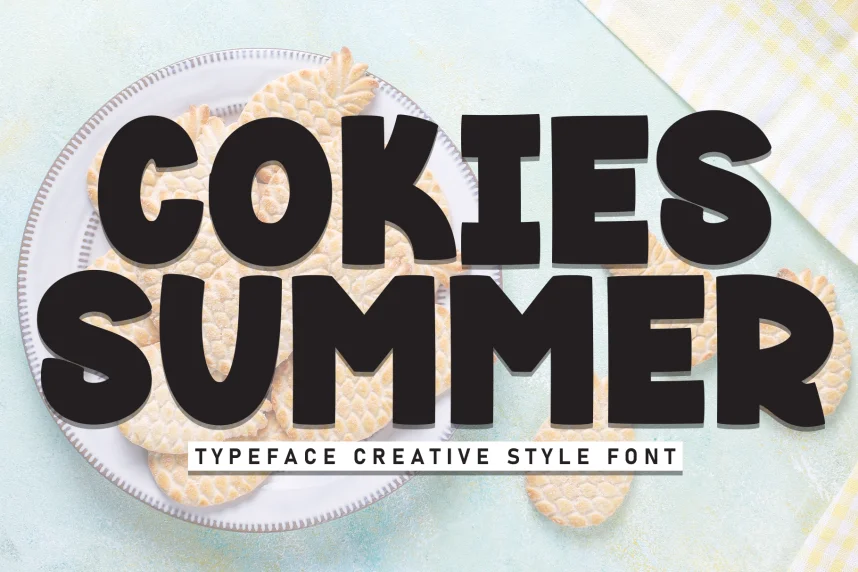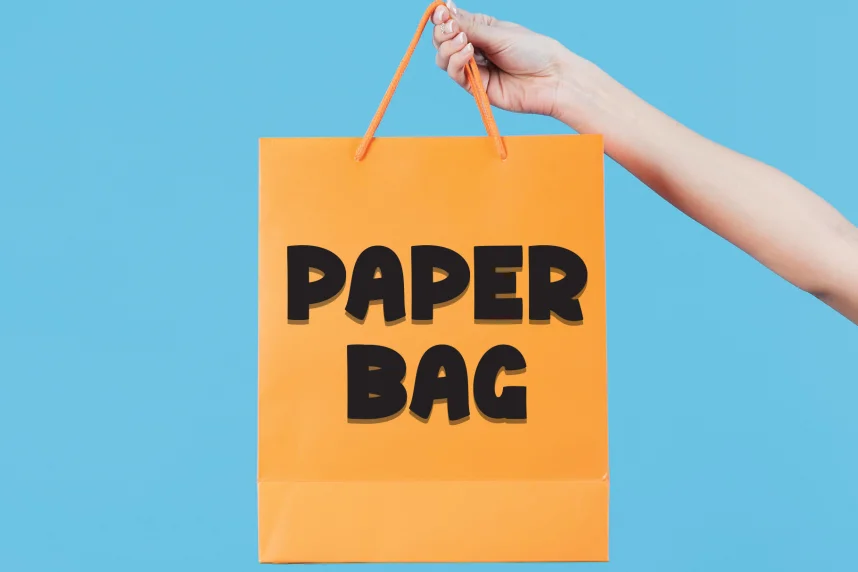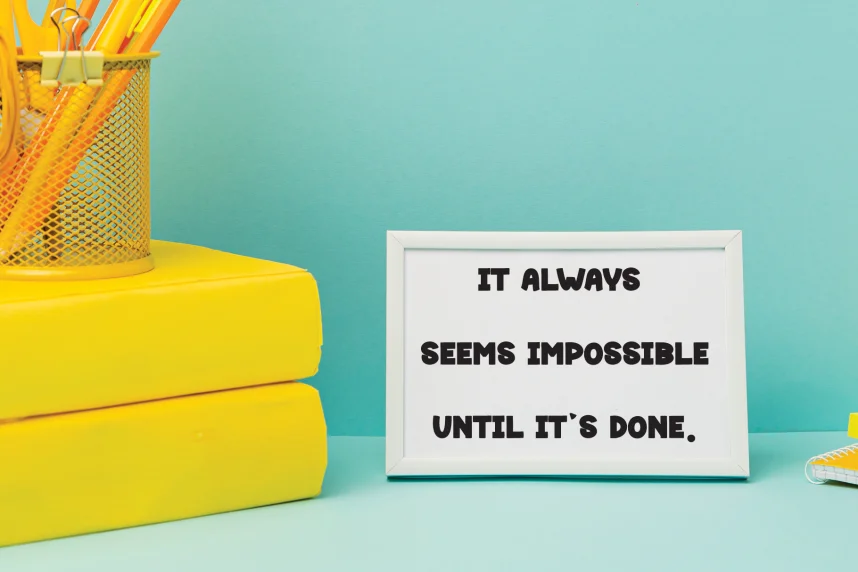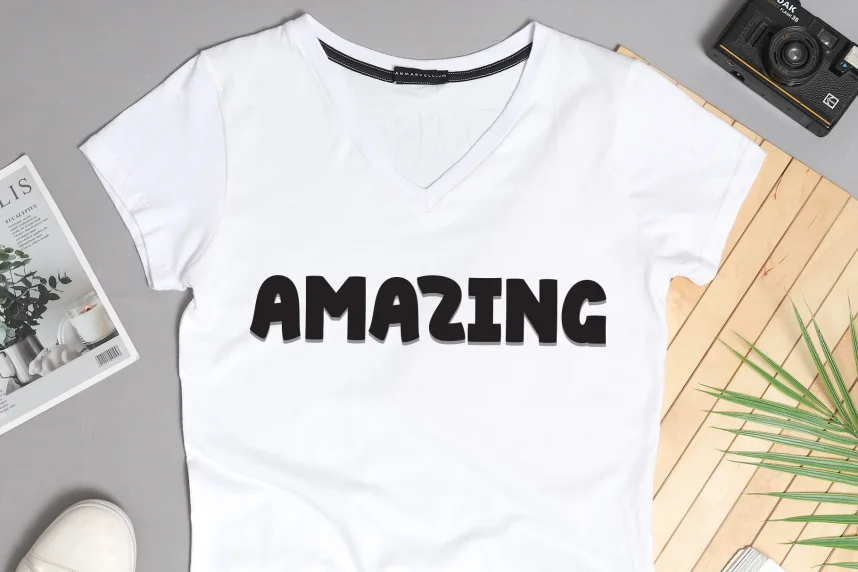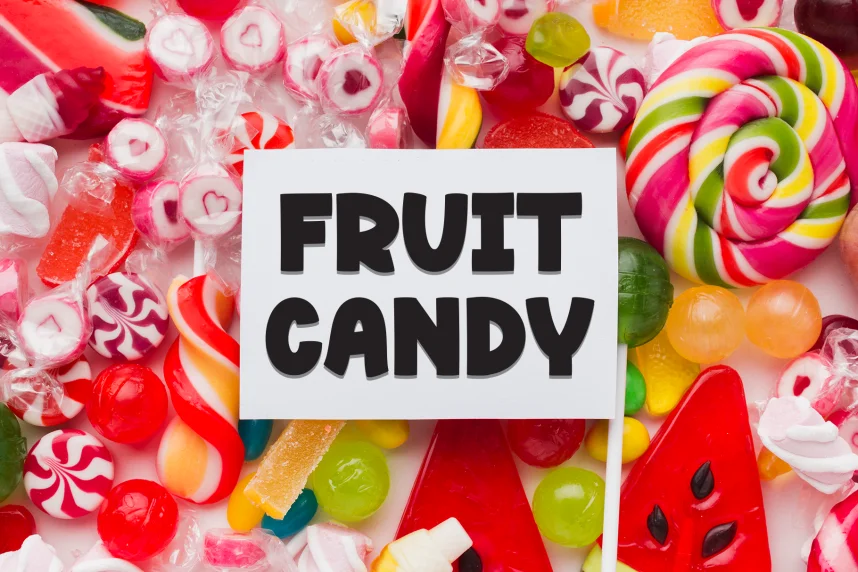
Cokies Summer – Creative Style Font addresses the challenge of creating bold, energetic designs for summer-themed projects while ensuring readability. Designers often use this font for vibrant, seasonal branding.
Cokies Summer is a display font with thick, rounded strokes and dynamic, exaggerated letterforms. The design reflects a playful, informal style with high visual impact, making it perfect for short text and headlines.